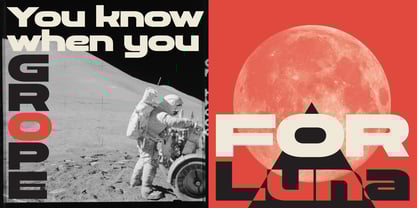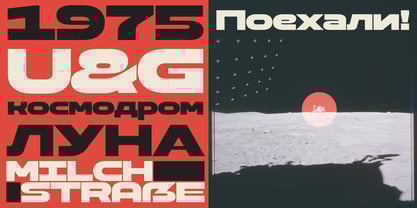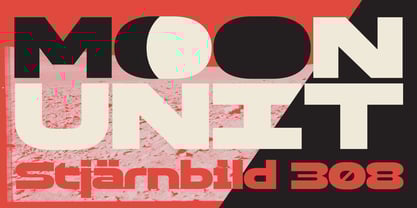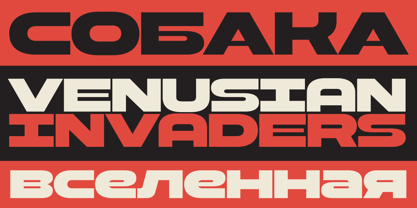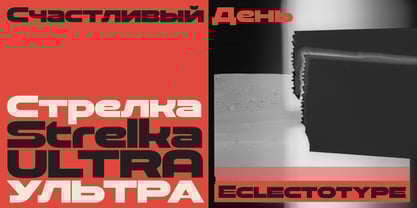
Strelka Font
Strelka Ultra is a space age, in-your-face headliner, perfect for your fledgling space tourism business or sentient robot army’s corporate identity. What’s included in Strelka Ultra then? Here goes... For that authentic space age look, a Cyrillic alphabet was a must. This is Eclectotype’s first font to include a Cyrillic character set. Small Caps are included for Latin glyphs, including numerals, and stylistic alternates are SS01 - alternative A and E, and SS02 - alternative y. Lastly, automatic fractions are there for all your (g)astronomic cookbook needs.